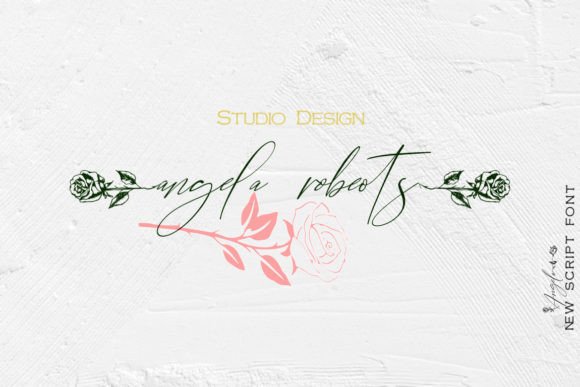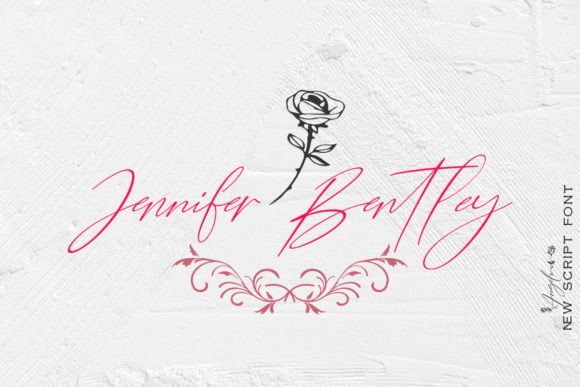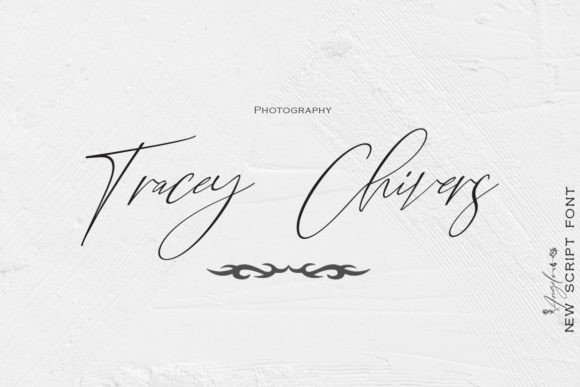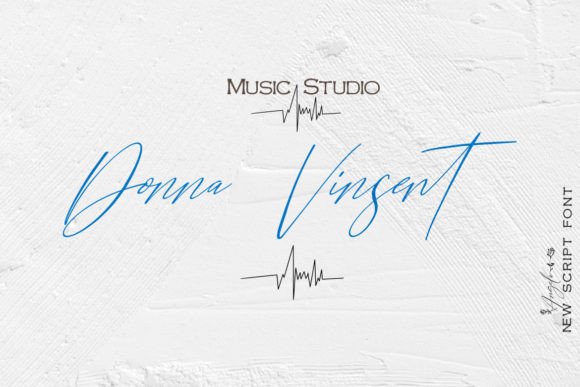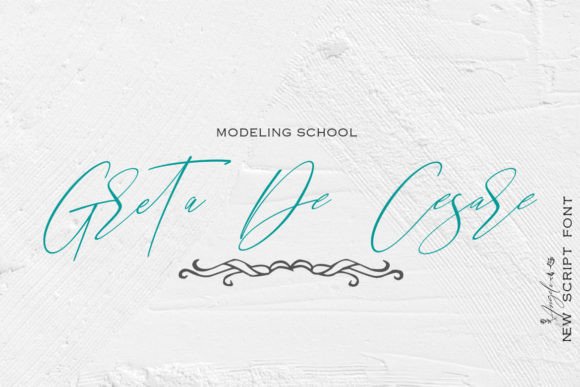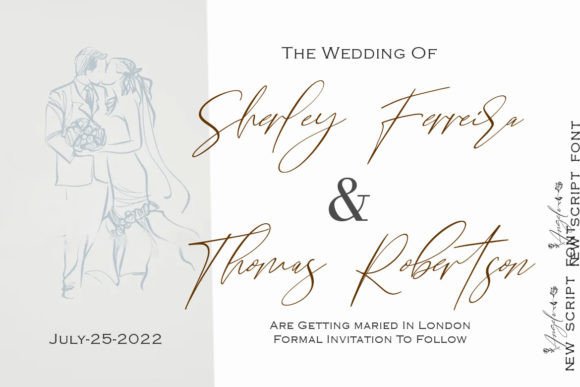
The Designer’s Delight: Angela Font
Ah, the quest for the perfect font! I recall working on a project, pouring my heart and soul into it, only to hit a roadblock: finding a font that matched my vision. My client wanted something elegant, modern, and eye-catching. That’s when I stumbled upon Angela Font, and it was love at first sight! 💕
Angela is a beautiful and modern signature script that has a subtle style, perfect for adding a touch of class to your designs. This font is versatile and can be used for various projects, including branding, photography, invitations, quotes, watermarks, advertisements, labels, and more!
- ✨ Elegant and modern design
- ✅ Subtle style that’s perfect for adding a touch of class
- 💫 PUA encoded, making it easy to access all glyphs and sweeps
- 🎨 Highly versatile and suitable for various design projects
While Angela Font is an excellent choice, there are a few things to keep in mind:
- ⚠️ As with any script font, it may not be suitable for body text or long paragraphs.
- 🤔 Some users may find the font a bit too subtle, requiring additional styling to make it stand out.
The Story Behind Angela Font
Angela Font was designed with the intention of creating a beautiful, modern signature script that would add a touch of elegance to any design. The designer aimed to craft a font that was both subtle and eye-catching, perfect for a wide range of creative projects.
PUA (Private Use Area) encoding allows designers to access a wide range of glyphs, sweeps, and special characters within the font. This means you can easily add unique touches to your designs without needing to use external graphics or software.
Q: Is Angela Font suitable for body text or long paragraphs?
While Angela Font is an excellent choice for headings, titles, and short text passages, it may not be the best fit for body text or long paragraphs. Its elegant, cursive design is better suited for adding visual interest to specific design elements.